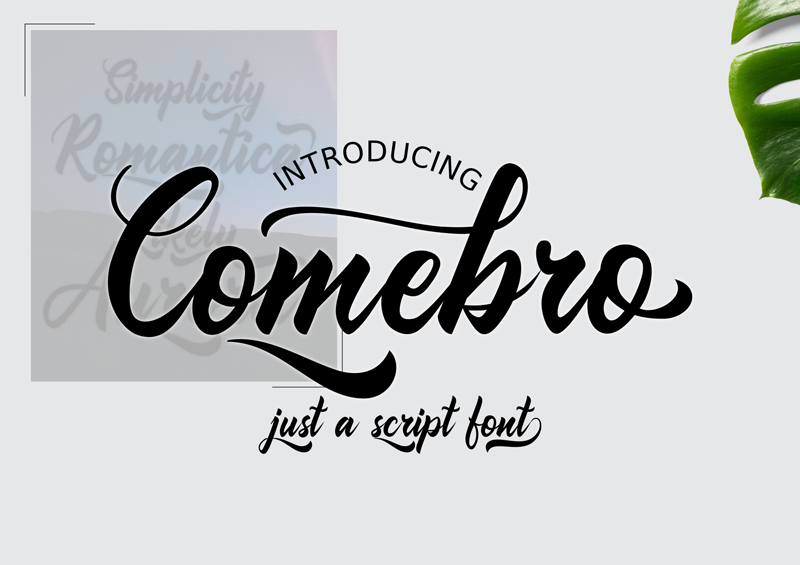
Preview and download Comebro Font. Created by Onne Hermawan in Script Old School styles with Free for personal use license.
Font name: | Comebro |
Author: | Onne Hermawan |
Introducing Comebro script font, suitable for many designing needs or regular typing needs. This version is free for personal use, for the full version can be found in graphicriver at here : https://graphicriver.net/item/comebro/25721543 or on thj here : https://thehungryjpeg.com/product/3689508-comebro thankyou.. |